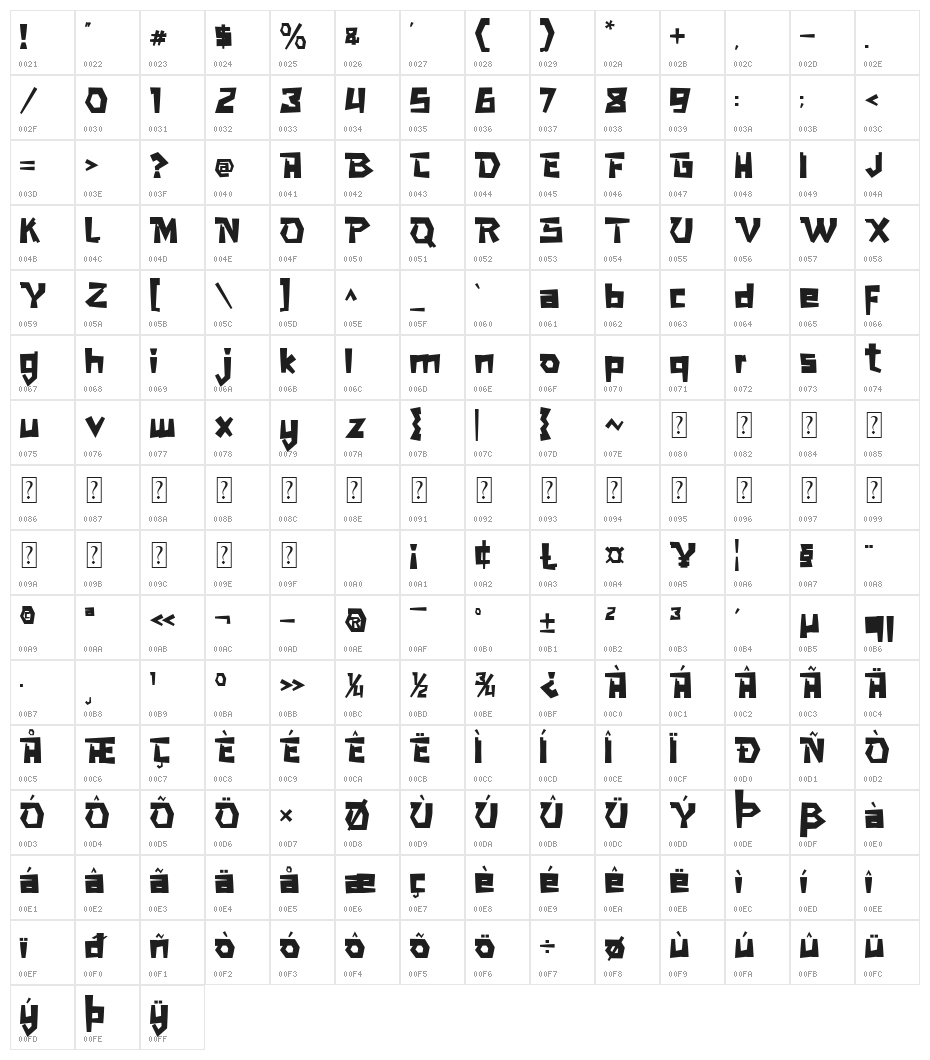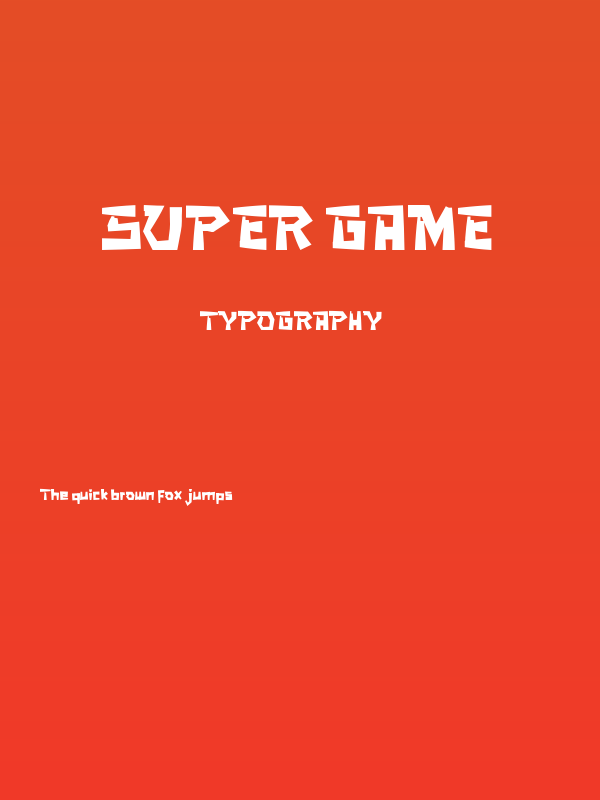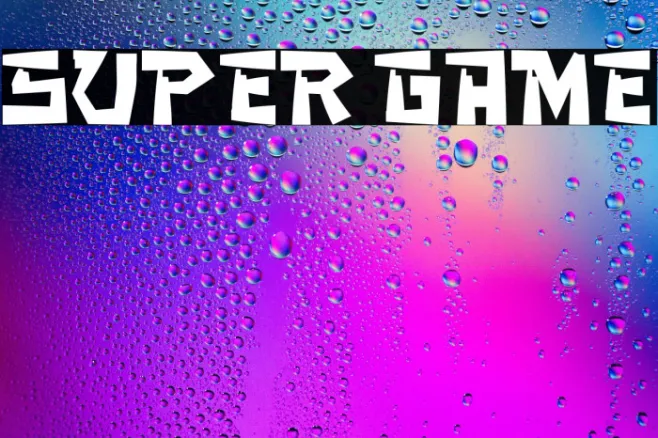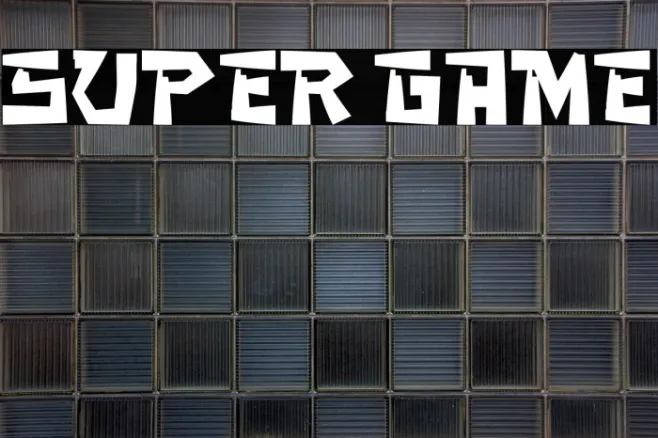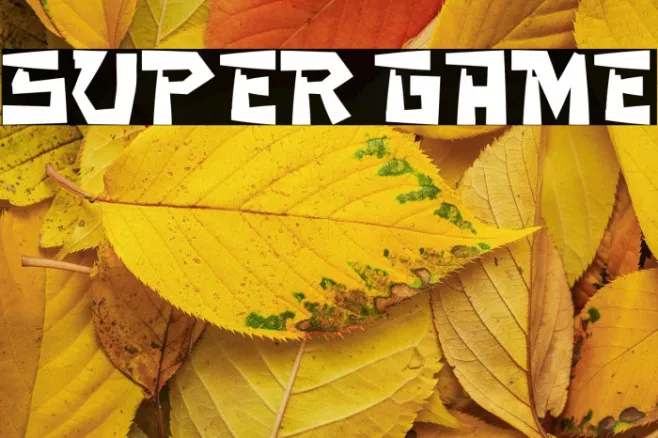
SUPER GAME Font
SUPER GAME Description
This font features a bold and dynamic style with sharp, angular edges and a geometric structure. Each character is designed with a unique, edgy flair, giving it a modern and slightly aggressive appearance. The uppercase and lowercase letters maintain a consistent aesthetic, with the uppercase being more pronounced. Numbers and special characters follow the same design principles, ensuring uniformity across all glyphs. The font's thick strokes and distinctive shapes make it highly visible and attention-grabbing, suitable for projects that require a strong visual impact.
| Proposed Projects | Ideal for video game titles, posters, branding for extreme sports, or any project needing a bold, impactful typeface. |